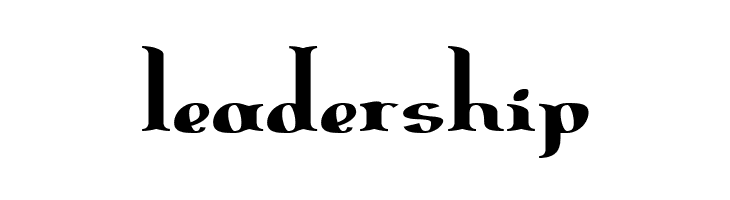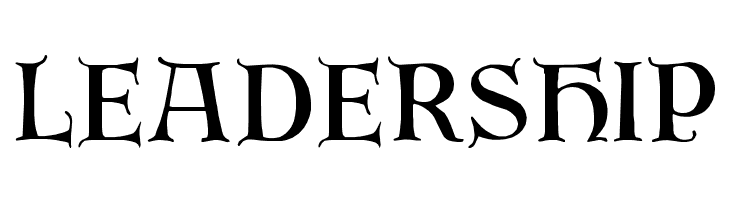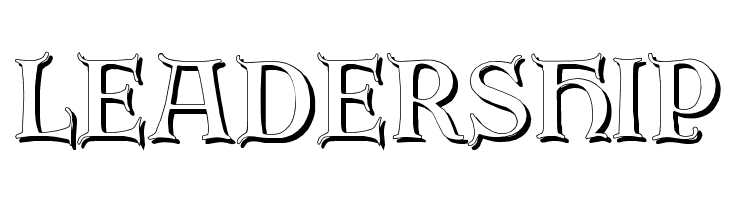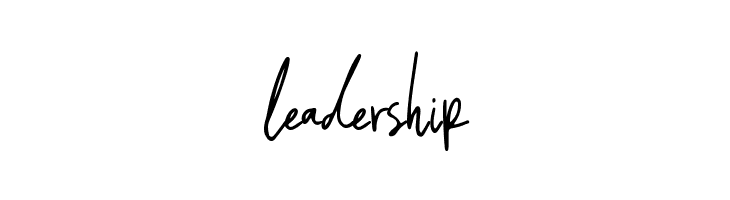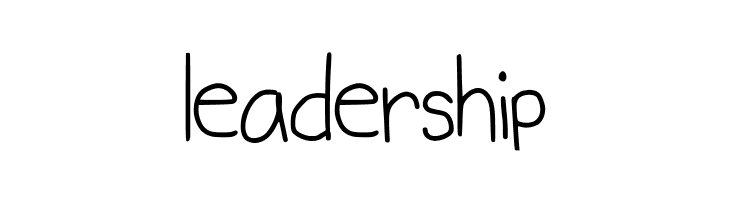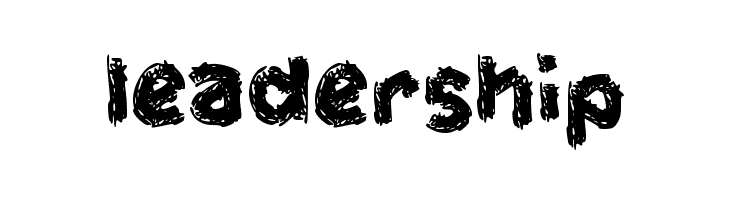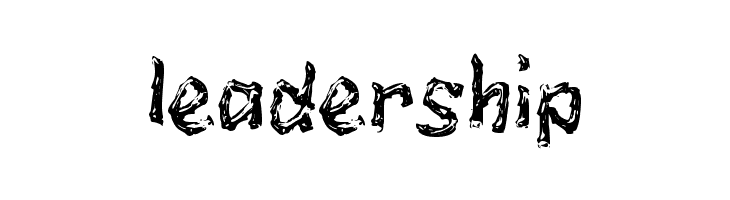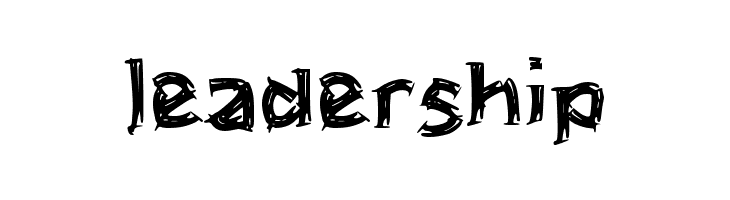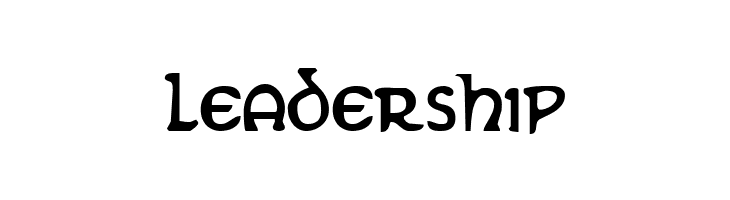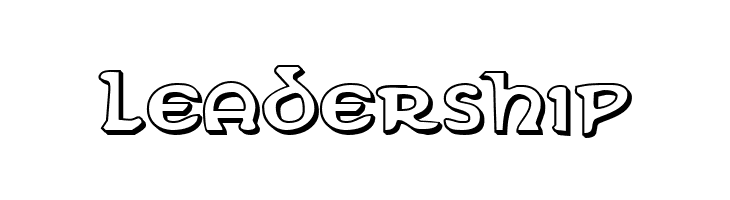
A bold, jagged font with a rugged, distressed appearance.
A playful, handwritten font with flowing strokes and a casual style.
A bold, distressed font with a textured, handcrafted appearance.
A bold, decorative font with gothic and medieval influences.
A bold, dramatic font with sharp angles and smooth curves, perfect for creative projects.
A decorative font with gothic influences and intricate detailing.
A bold, inline font with a dramatic and elegant style.
A classic serif font with elegant, decorative elements.
A bold, decorative font with a shadow effect, ideal for dramatic displays.
A classic serif font with elegant and refined letterforms.
A bold, textured, hand-drawn font with a playful and artistic style.
A modern, geometric font with a futuristic and tech-inspired design.
A bold, edgy, graffiti-like font with a hand-drawn appearance.
A playful, handwritten font with smooth curves and a casual style.
A bold, thick font with a strong, modern presence.
A classic serif font with bold, sharp serifs and a balanced, elegant style.
A playful, hand-drawn font with a casual and whimsical style.
A bold, decorative font with Celtic-inspired curves and flourishes.
A bold, 3D decorative font with a playful, retro style.
A bold, 3D italic font with a playful and dynamic style.
A bold, decorative font with Celtic influences and thick, playful curves.
A bold, italicized font with playful, rounded characters and dynamic slant.
A bold, condensed font with playful, rounded letterforms and whimsical curves.
A dynamic, condensed italic script font with a modern calligraphic style.
A bold, decorative font with Celtic-inspired letterforms and intricate serifs.
A bold, italic font with dynamic curves and expanded width, ideal for display use.
A bold, italic font with a calligraphic style and medium contrast.
A playful, left-leaning italic font with bold strokes and a decorative style.
A lively, handwritten-style font with a casual and personal touch.
A playful, handwritten font with bold, irregular characters and a casual style.
A rugged, distressed font with a hand-drawn, textured appearance.